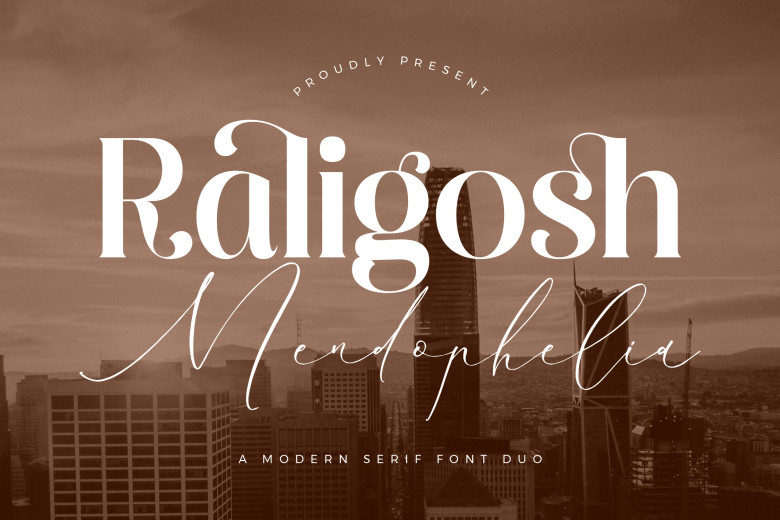
Raligosh Mendophelia Font
Raligosh Mendophelia font duo from Storytype is an elegant serif and script font with its own distinct style and contemporary appearance, perfect for creating classy logos, book or film name designs, fashion brands, magazines clothing lines, lettering quotes and many other uses.
This font can also help make text more readable when reading newspapers online or printed forms of them such as newsmagazines.
Raligosh Mendophelia Font Duo